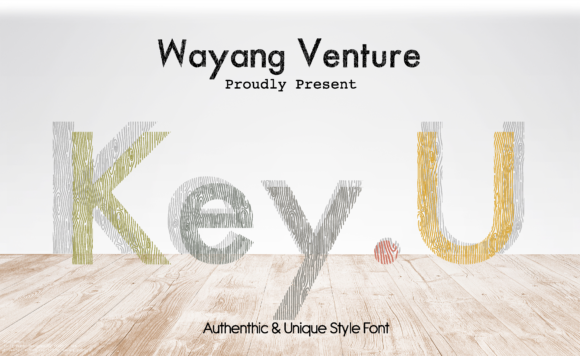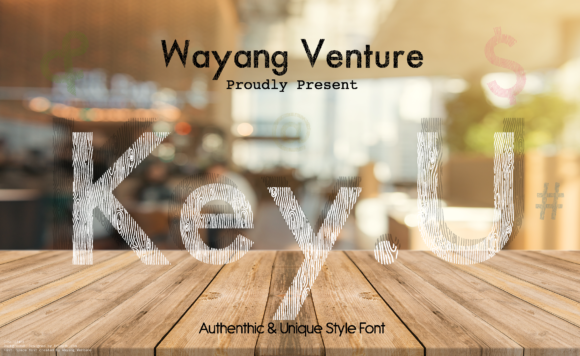
Unlocking Creative Potential with Key U Font
Imagine you’re working on a high-profile design project and you need the perfect font to elevate your creative vision. The search is on for that one special font that will set your project apart from the rest. It’s a moment every designer has experienced, and for some, it can be a game-changer.
Enter the Key U Font, a bold, neat, and authentic display font that’s sure to make your designs stand out. With its unique aesthetic, this font is a valuable resource for designers looking to add a touch of sophistication to their creative projects. Whether you’re working on a logo, brochure, or social media campaign, the Key U Font is an excellent choice.
Key Features of Key U Font
- Features a bold and modern design, making it suitable for a wide range of creative projects, from logos to typography.
Honest Review: Key U Font
One of the things that stood out to me was the high quality of the font. The details and textures are well-crafted, making it perfect for designers who want to add a touch of sophistication to their designs.
- ✨ Transparent background option for seamless integration into designs
- ✨ High-quality details that add depth and character to designs
- ⚠️ Limited customization options
- ⚠️ May not be suitable for very small or large font sizes
Overall, I’m impressed with the Key U Font. It’s a great resource for designers who want to add a touch of elegance to their creative project. While it may have some limitations, the benefits far outweigh the drawbacks.
For optimal results, use Key U Font with a transparent background to create a clean and modern design. Common use cases include:
- Logos and branding materials.
- Web and mobile app design.
- Print materials, such as business cards and brochures.